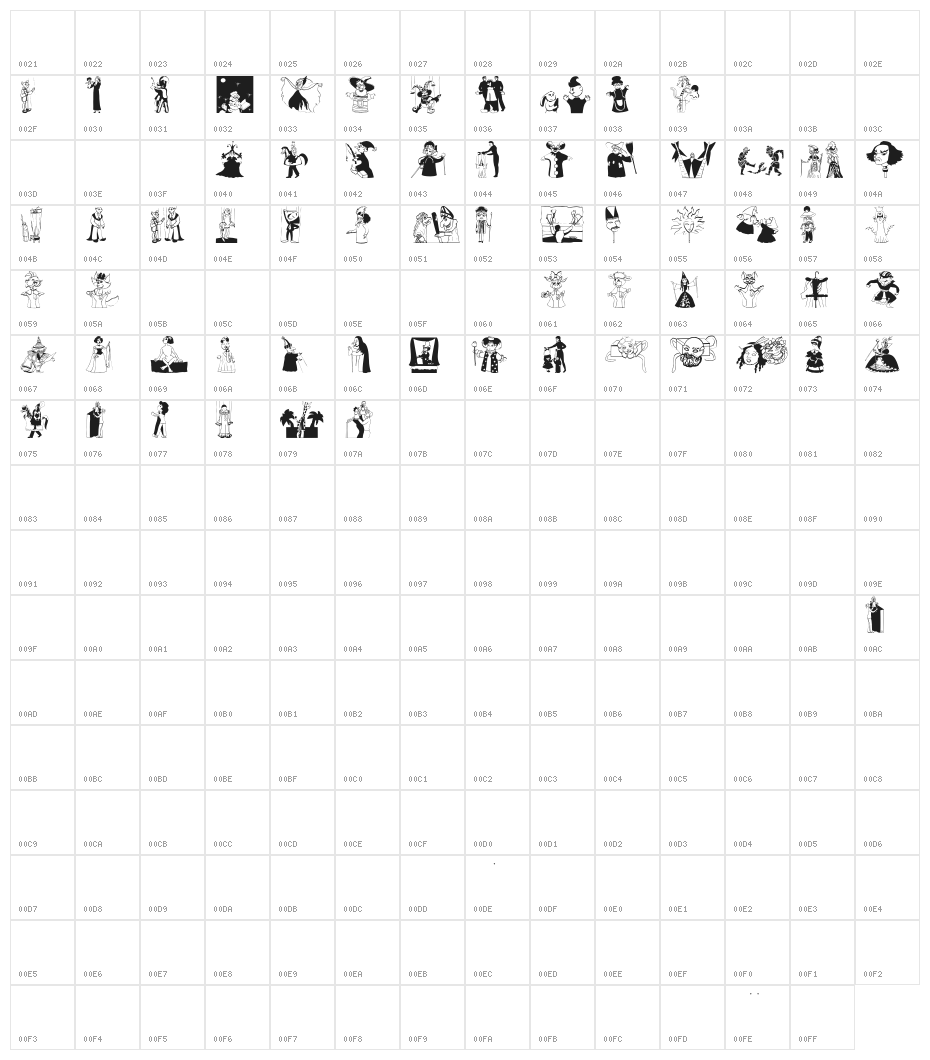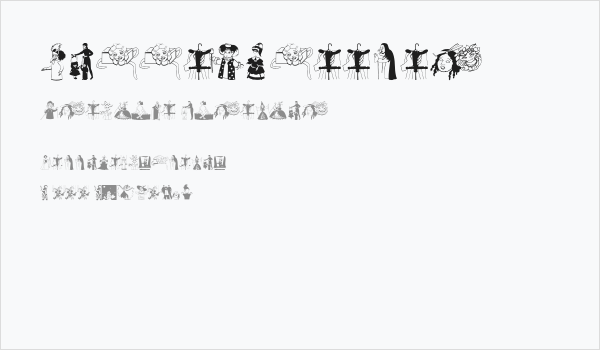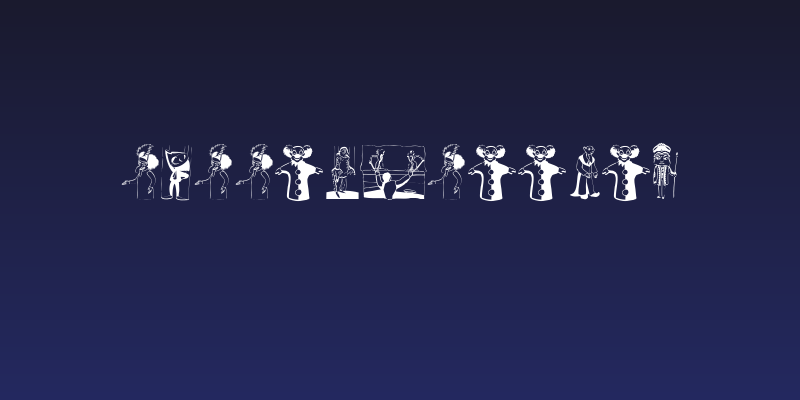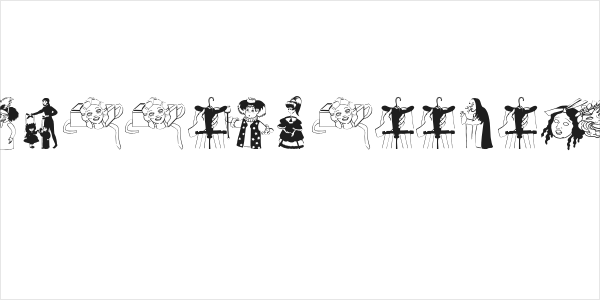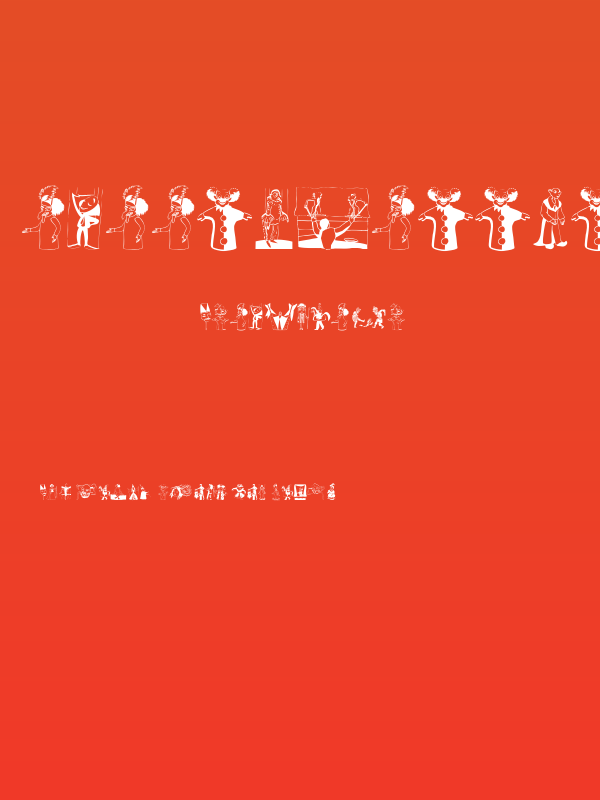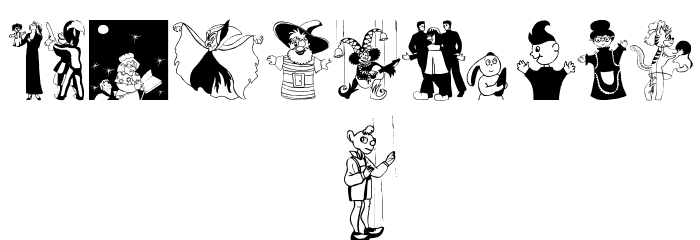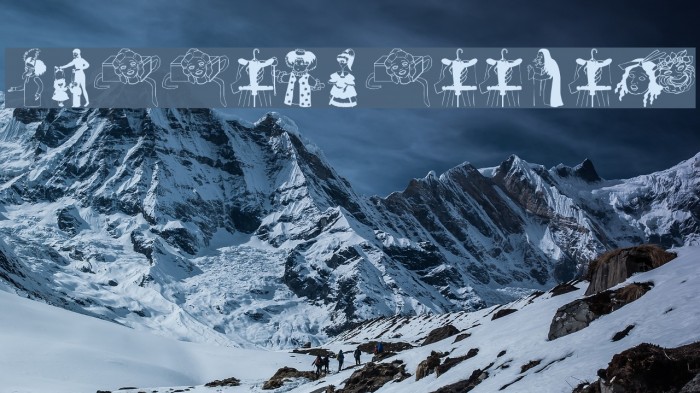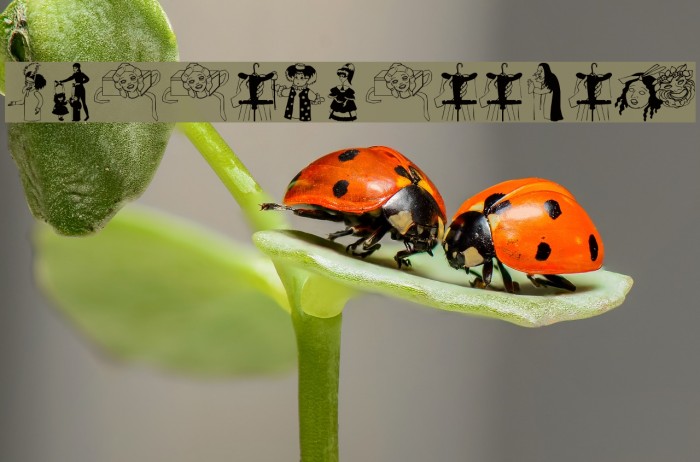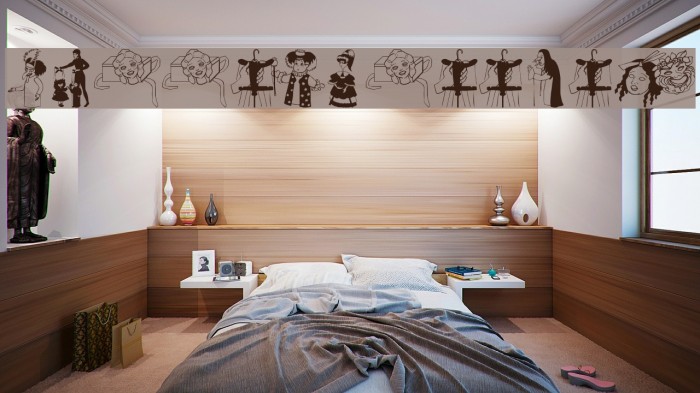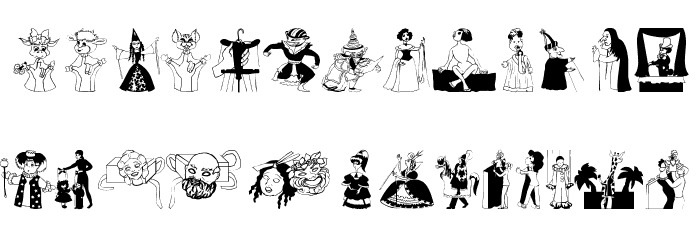
Poppenspeeler Font
Poppenspeeler Description
A highly decorative and whimsical font where each character is illustrated as a unique puppet or marionette figure, featuring detailed line art and theatrical, playful poses. The glyphs are all distinct, with each letter and symbol represented by a different character or scene, making legibility secondary to visual storytelling.
| Overall Style | Whimsical, Decorative, Theatrical |
| Use Case | Logos, Posters, Headlines, Themed Graphics |
| Proposed Projects | Children’s books, puppet theater posters, event invitations, creative branding, themed party materials. |